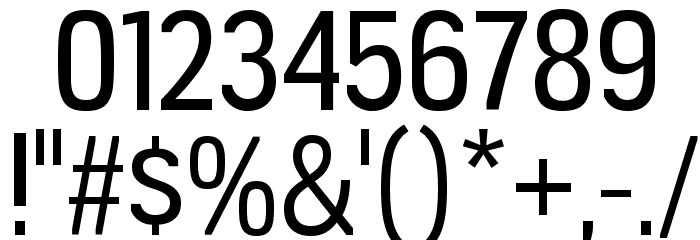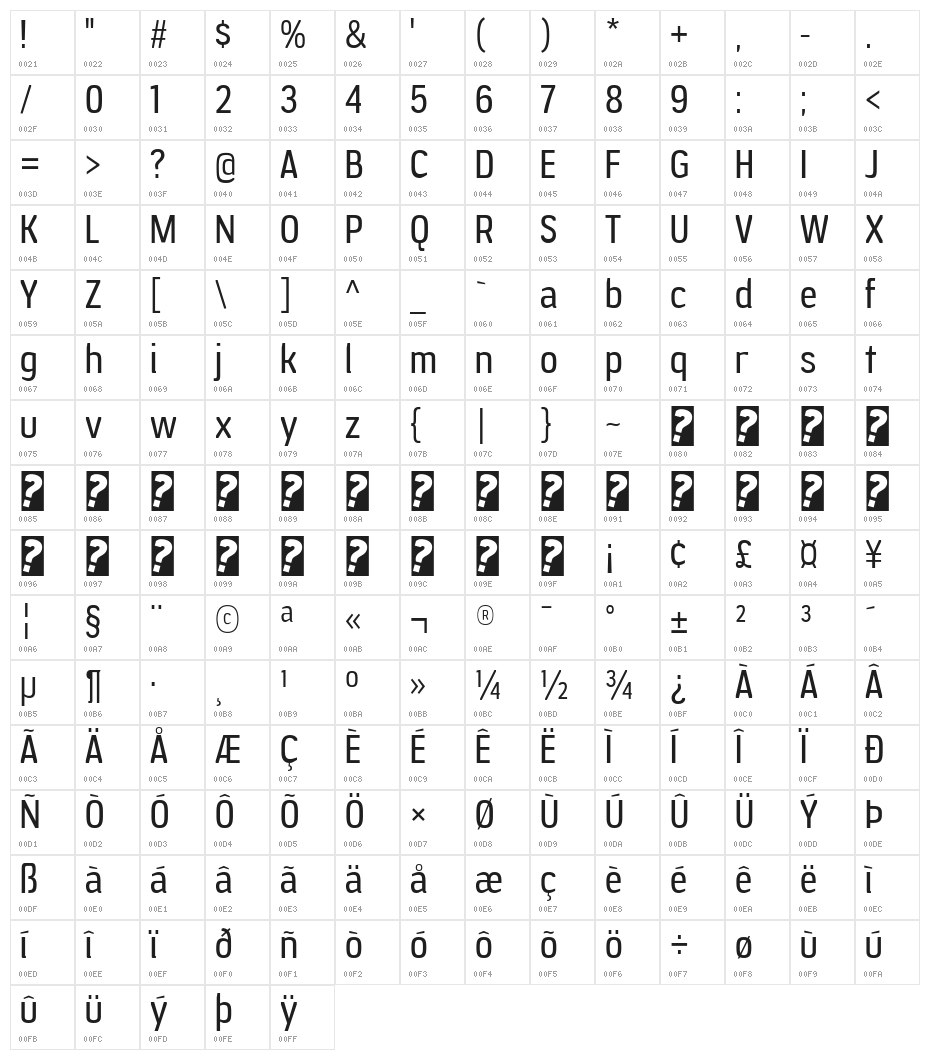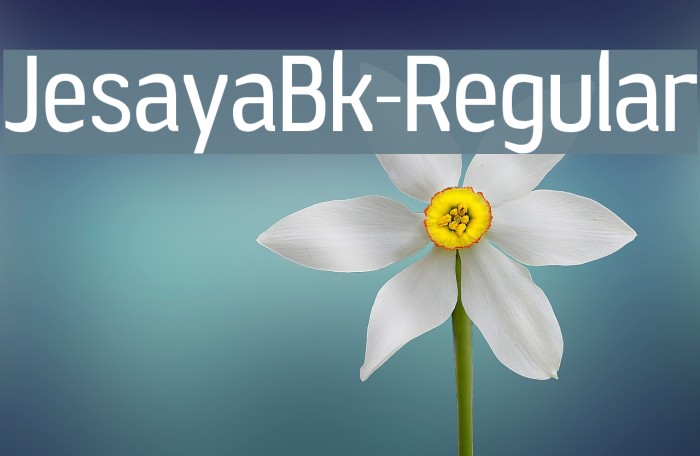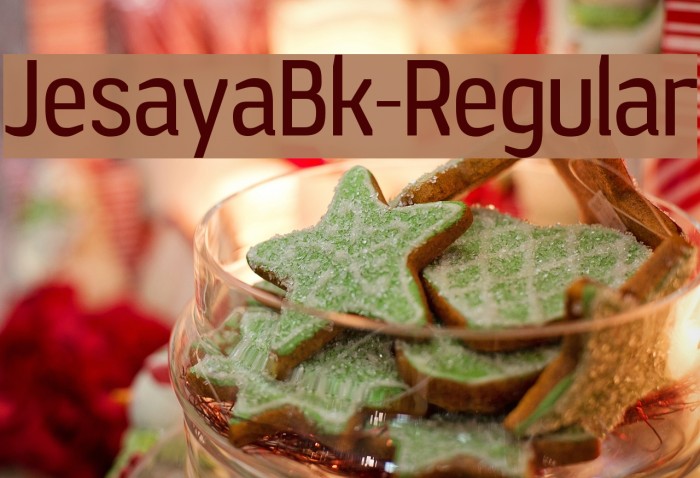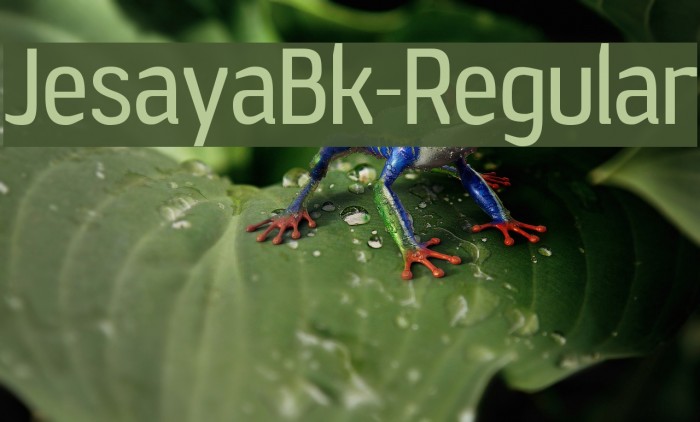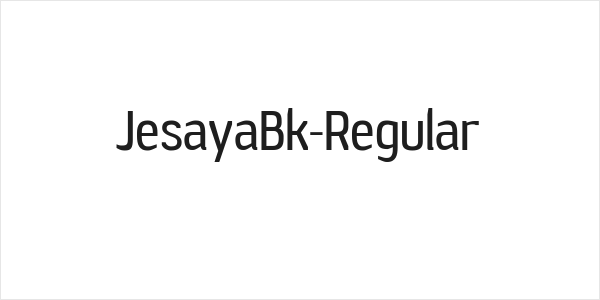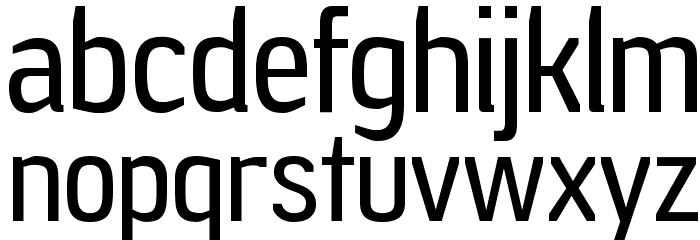
JesayaBk-Regular Font
JesayaBk-Regular Description
This font features a clean and modern sans-serif design with a uniform stroke width that gives it a sleek and professional appearance. The characters are well-proportioned, with a slightly condensed structure that enhances readability while maintaining a stylish aesthetic. The uppercase letters are bold and authoritative, while the lowercase letters offer a friendly and approachable feel. The numerals are clear and distinct, making them suitable for various applications. Special characters are included, providing versatility for different design needs. Overall, this font balances functionality with a contemporary style, making it suitable for a wide range of uses.
| Proposed Projects | Ideal for corporate branding, website headers, digital marketing materials, and editorial design. |